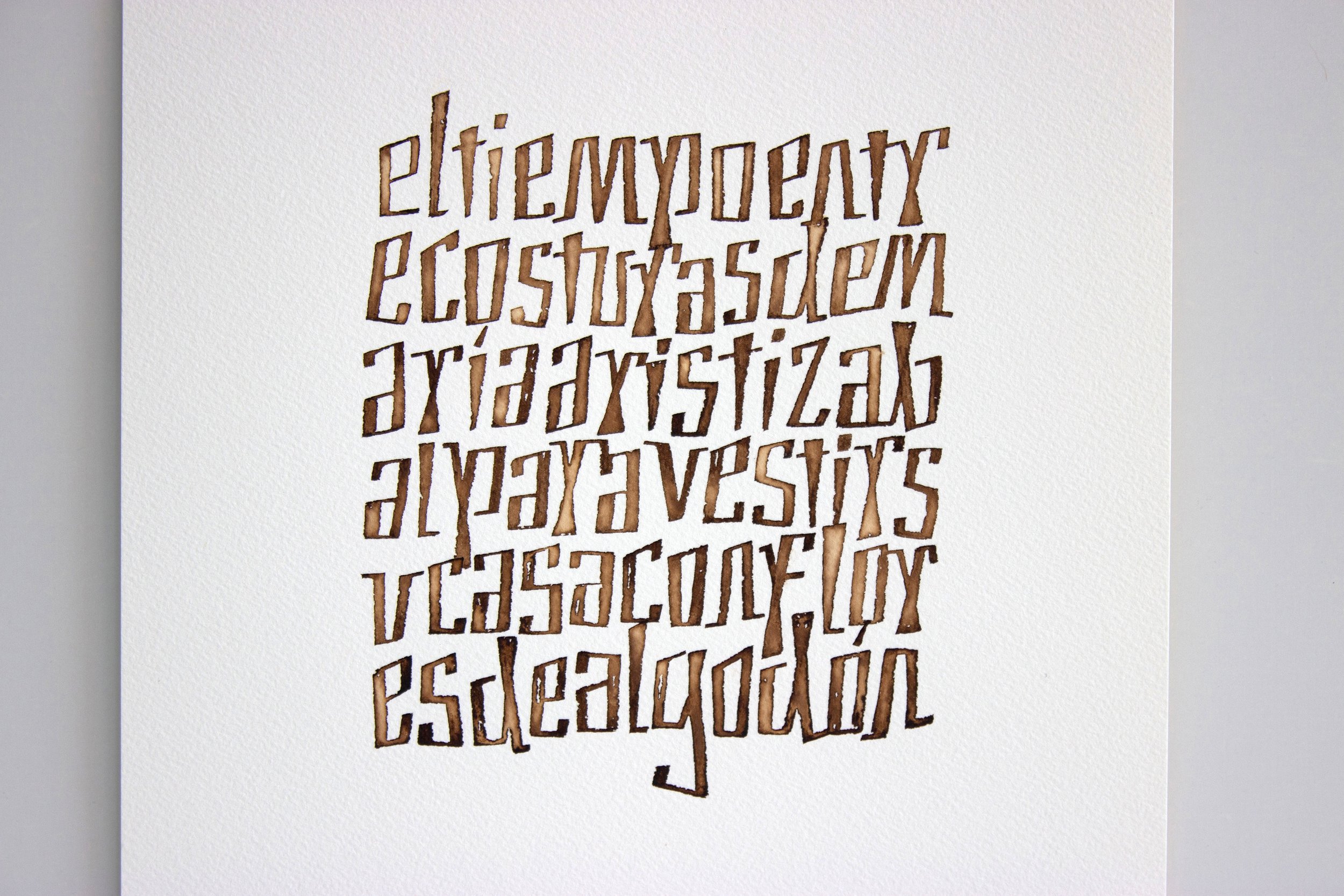
ANA SANABRIA | El tiempo entre costuras II (The Time Between Stitches II)
ARTIST | Ana Sanabria
BASED IN | Medellín, Colombia
TITLE | El tiempo entre costuras II (The Time Between Stitches II)
MEDIUM | Arches aquarelle, walnut ink
Using the same alphabet and text from El tiempo entre costuras I, this piece evokes the warm nostalgia of sepia-toned photographs, contact sheets, and old slide viewers. The Spanish text translates to “The time between stitches,” weaving together memory and material.
An artist based in Medellin, Colombia
Ana Sanabria
Ana Sanabria is a freelance lettering artist based in Medellín, Colombia. In 2017, she made a life-changing decision to pursue lettering more seriously, beginning formal training under the mentorship of Lieve Cornil. Her passion lies in making writing visible beyond the words themselves—treating letters as visual forms with expressive potential. Working across paper, digital media, and wood, Ana explores a wide range of letter-based practices, from handwriting, logo design, and branding to carving decorative wood pieces. For her, each project is an opportunity to bring words to life through craft, materials, and experimentation